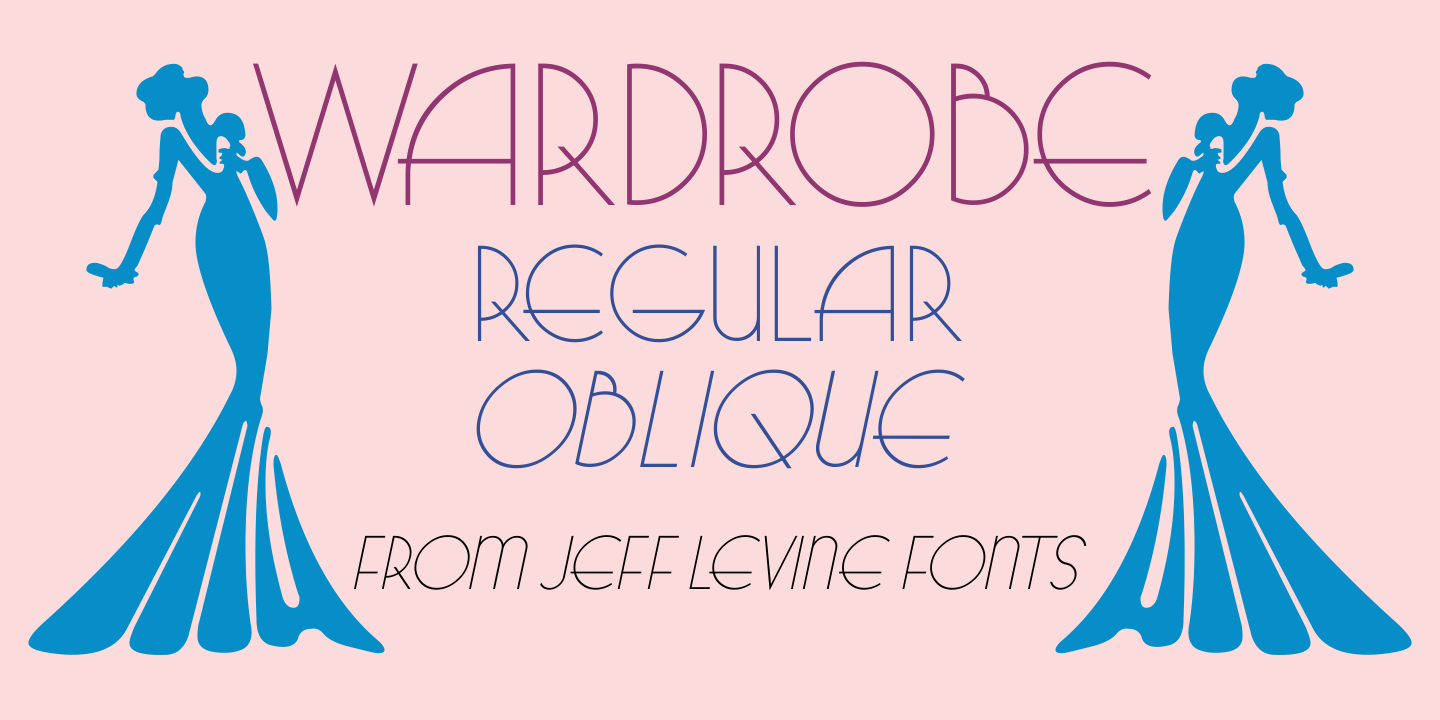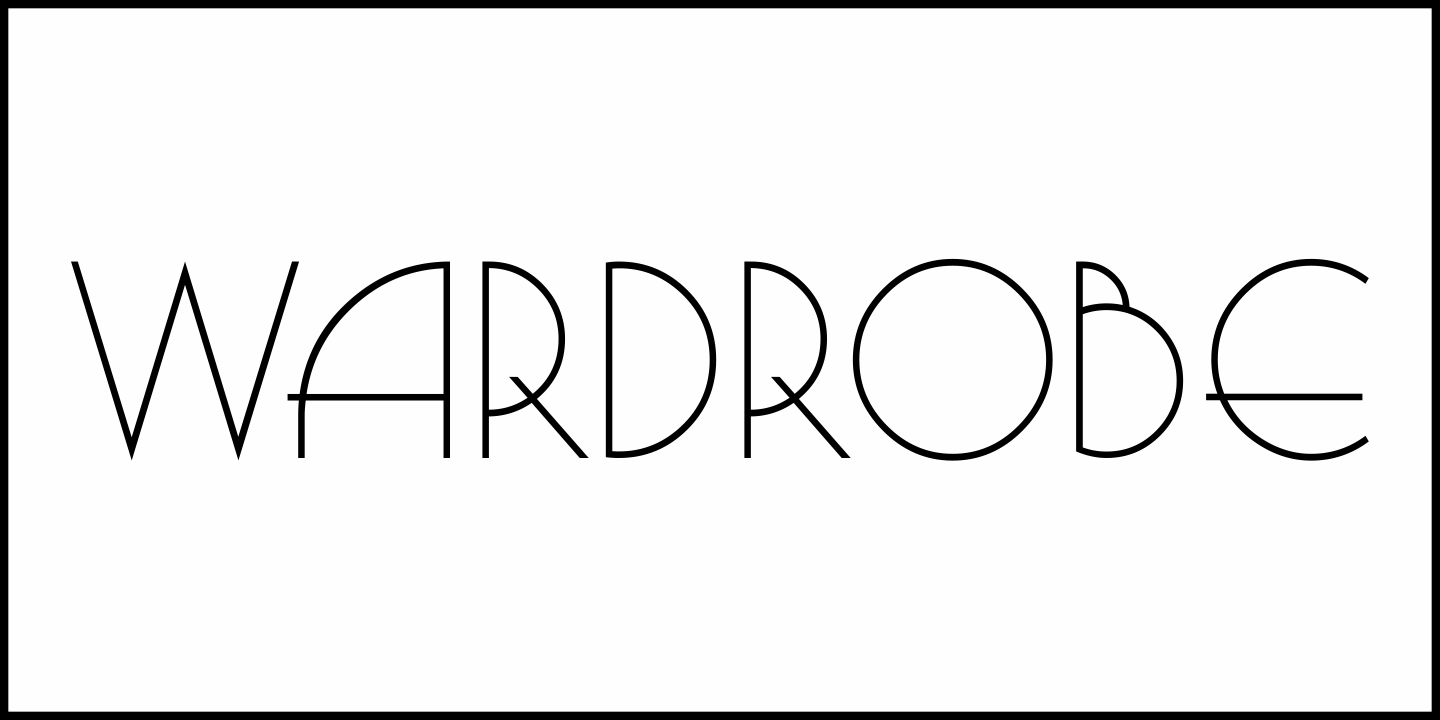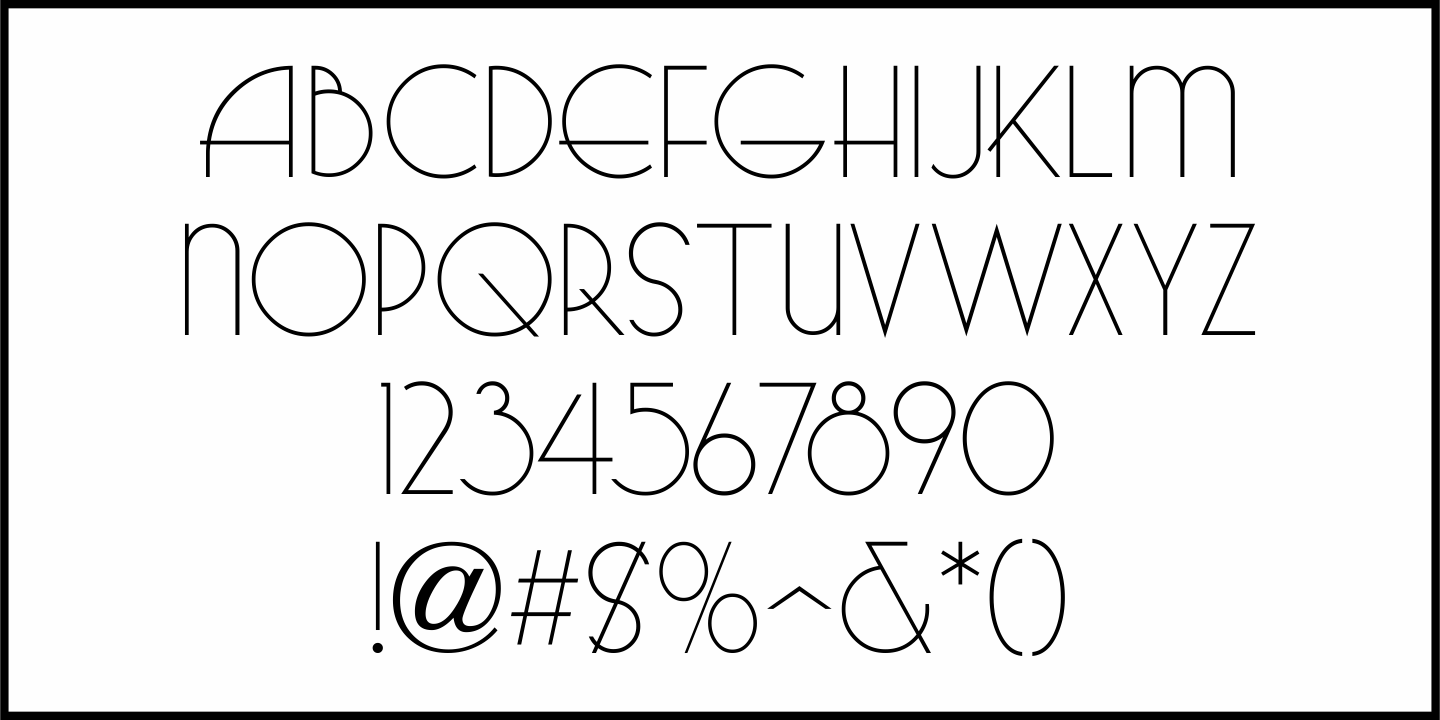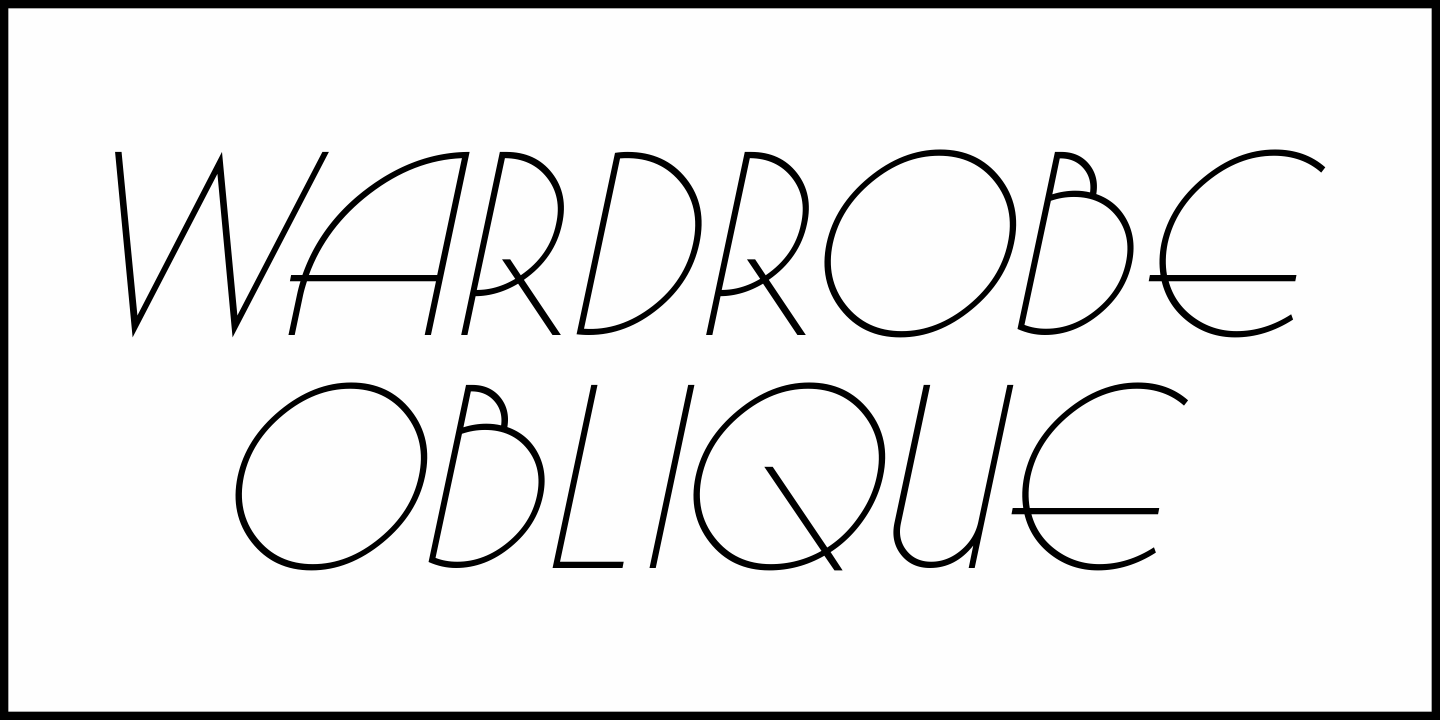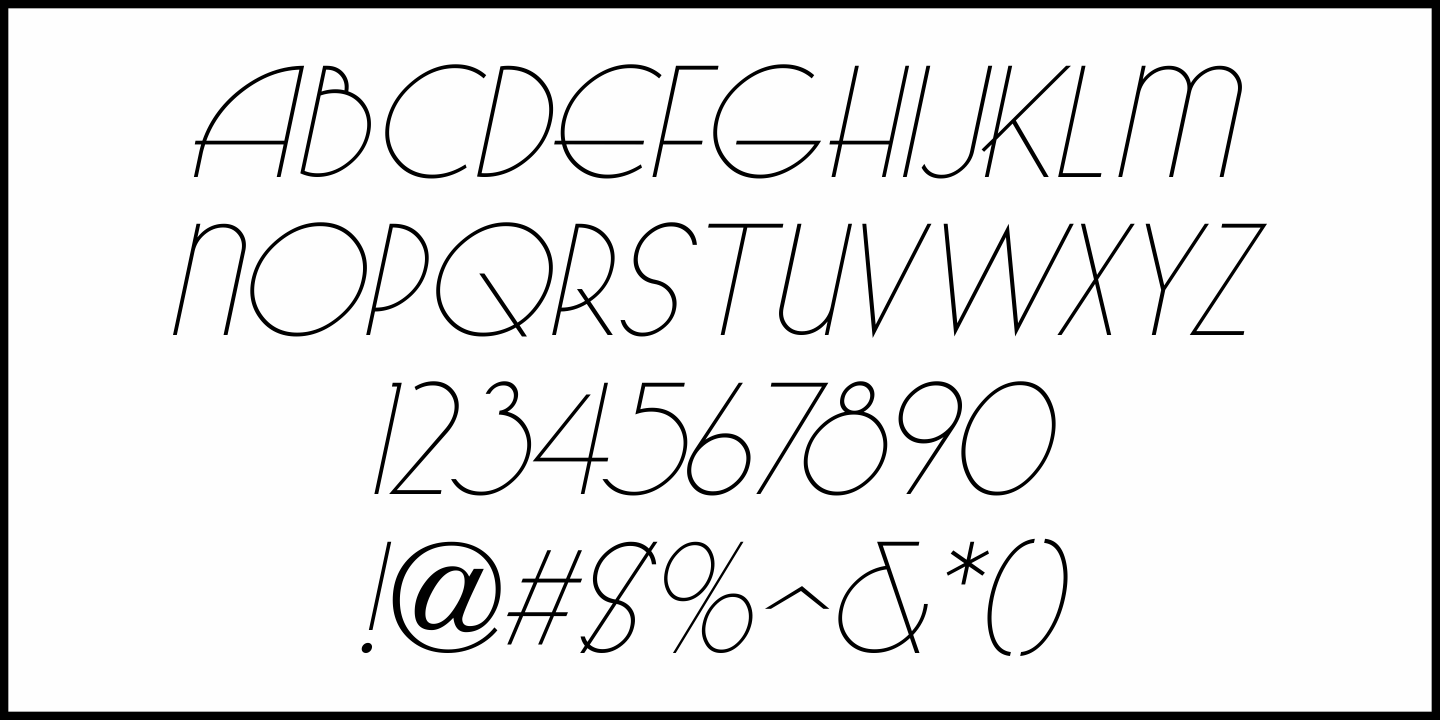
Wardrobe
A 1938 issue of the Spanish language movie fan magazine Cine-Mundial (Movie World) had an article entitled "Lo Que Visten Las Estrellas" ("What Stars Wear").
The headline of the article was hand lettered in a lovely Art Deco monoline sans serif, which is now available as Wardrobe JNL in both regular and oblique versions.